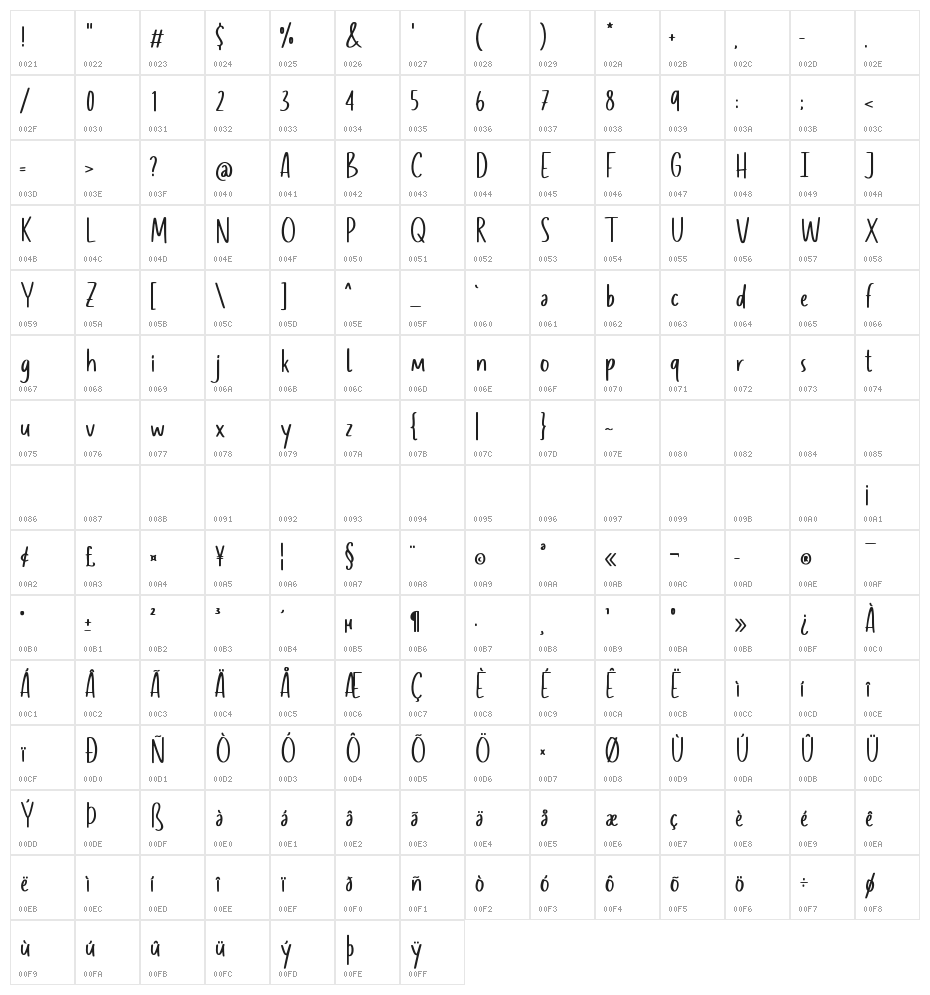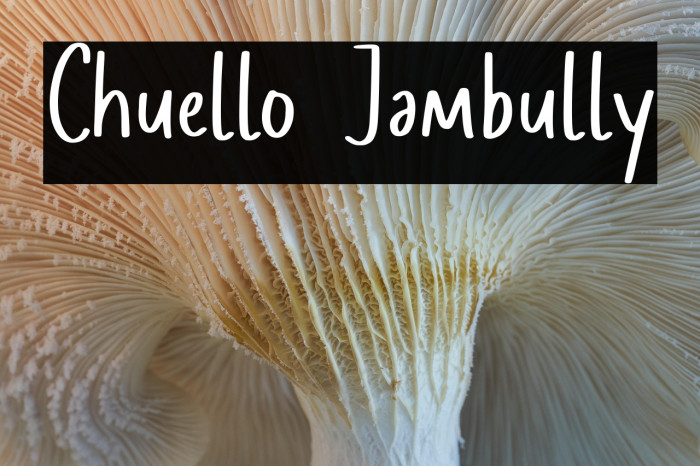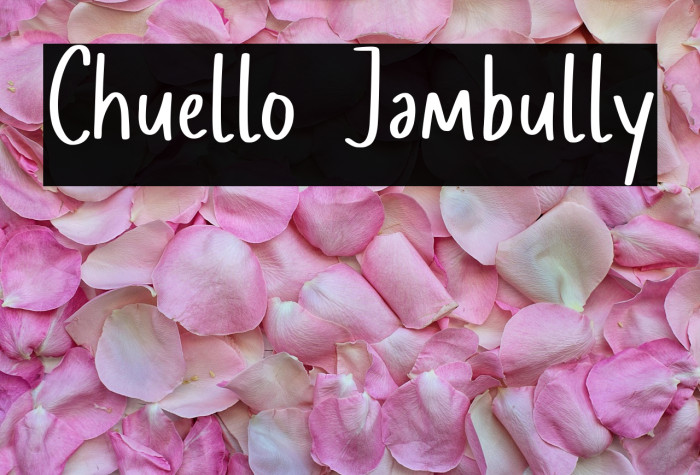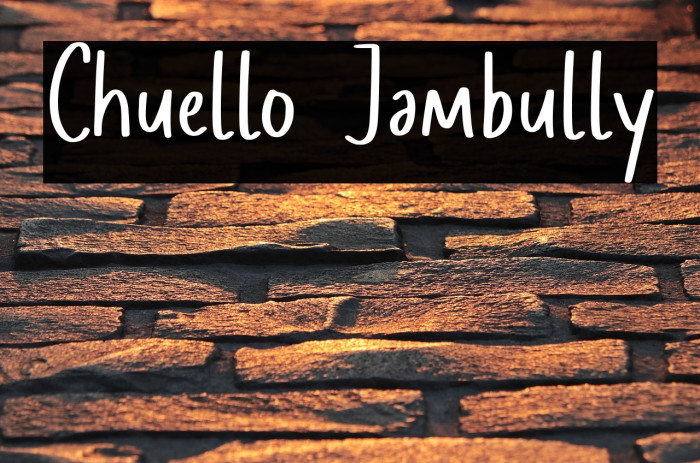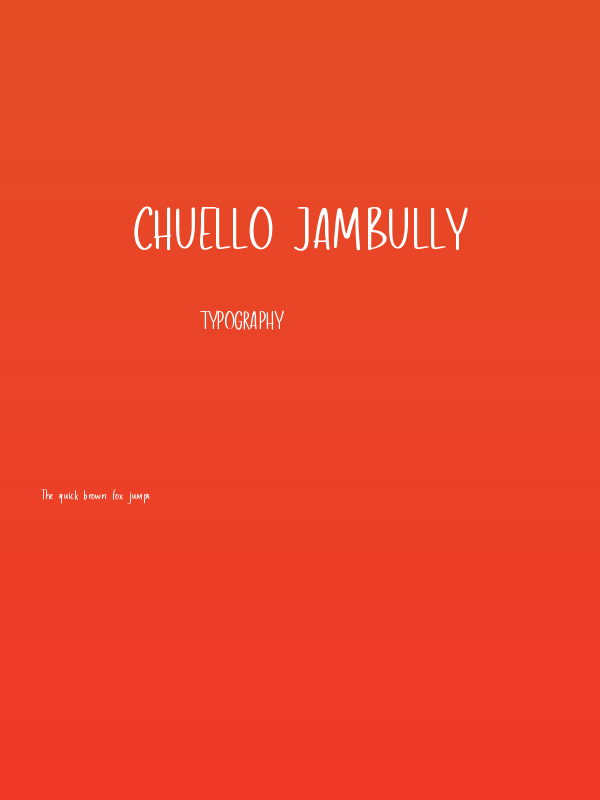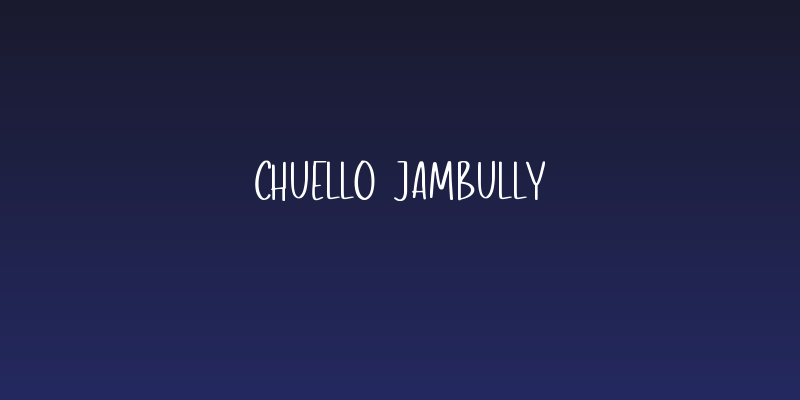
Chuello Jambully Font
Chuello Jambully Description
This font features a playful and casual handwritten style, characterized by its slightly irregular strokes and friendly appearance. The letters have a natural flow, with some variation in stroke width that adds to its charm. The uppercase letters are tall and slightly narrow, while the lowercase letters maintain a consistent height, creating a harmonious balance. The numerals and special characters follow the same playful aesthetic, making the font versatile for various creative projects. Its informal and approachable style makes it suitable for designs that aim to convey warmth and personality.
| Proposed Projects | Ideal for greeting cards, children's books, casual branding, and social media graphics. |